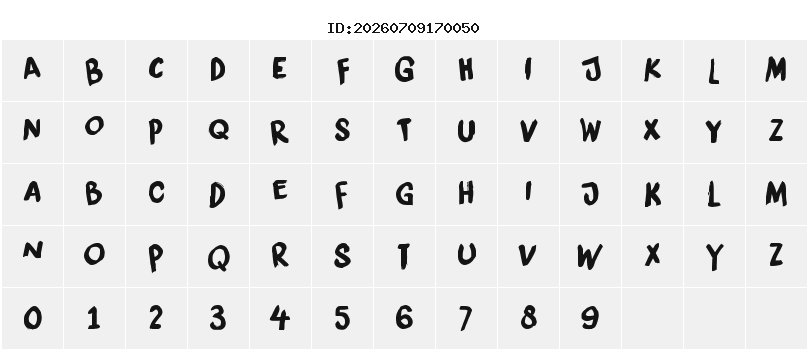
DK Liquid Embrace Preview
• Font Name: DK Liquid Embrace
• Designer: David Kerkhoff
About DK Liquid Embrace.ttf
DK Liquid Embrace.ttf is a modern, elegant sans-serif font designed for ultimate readability and visual harmony. Perfect for branding, headlines, web design, and print materials.